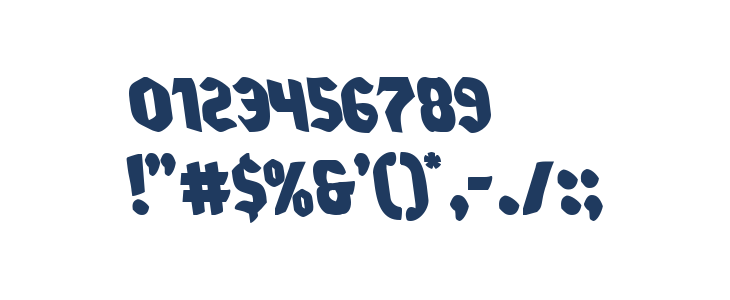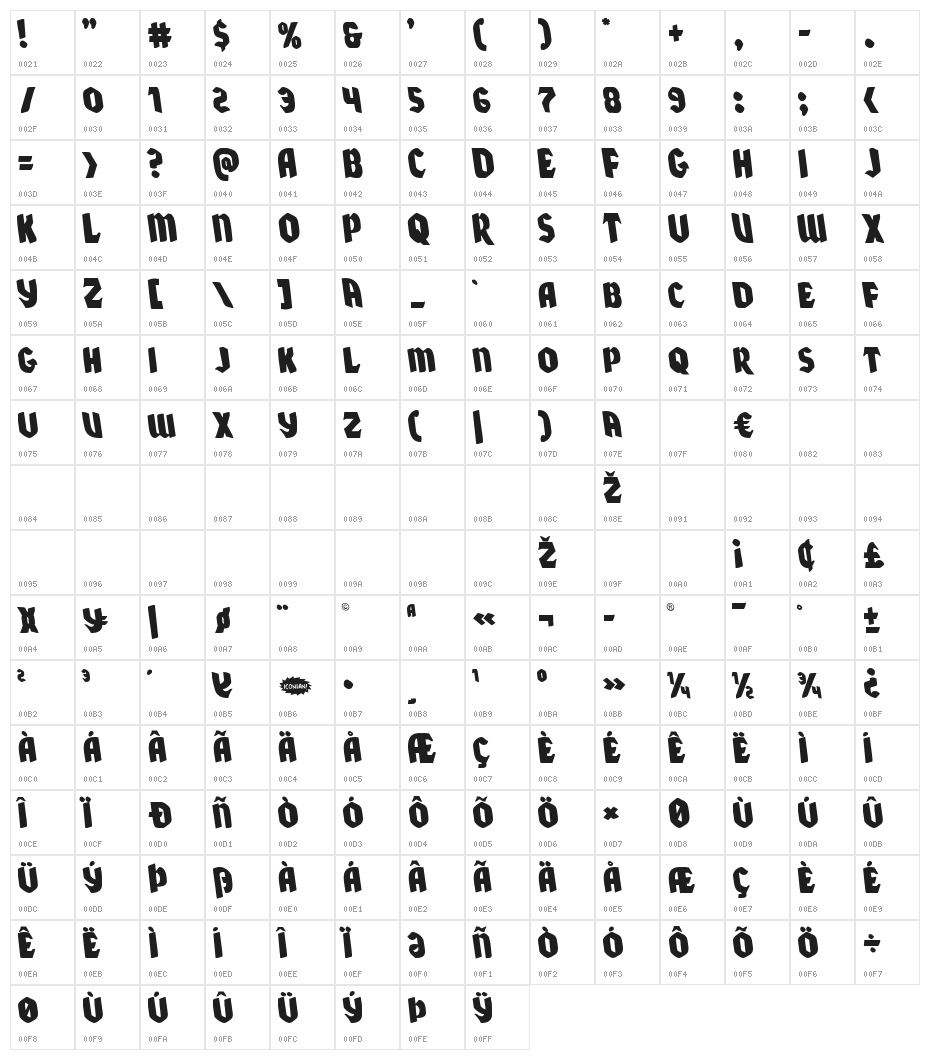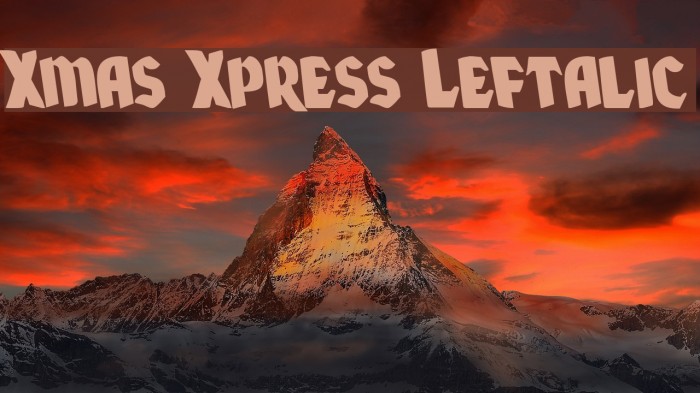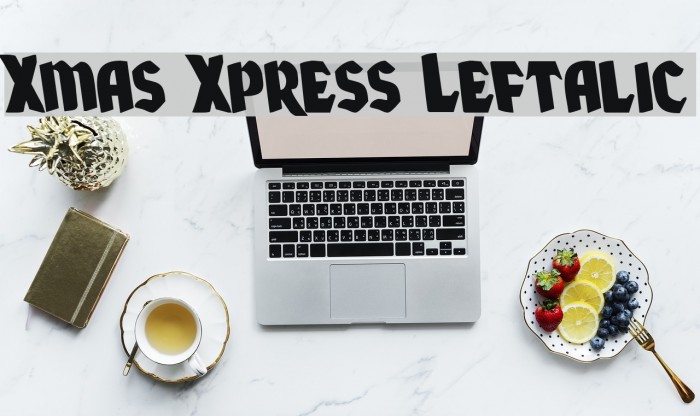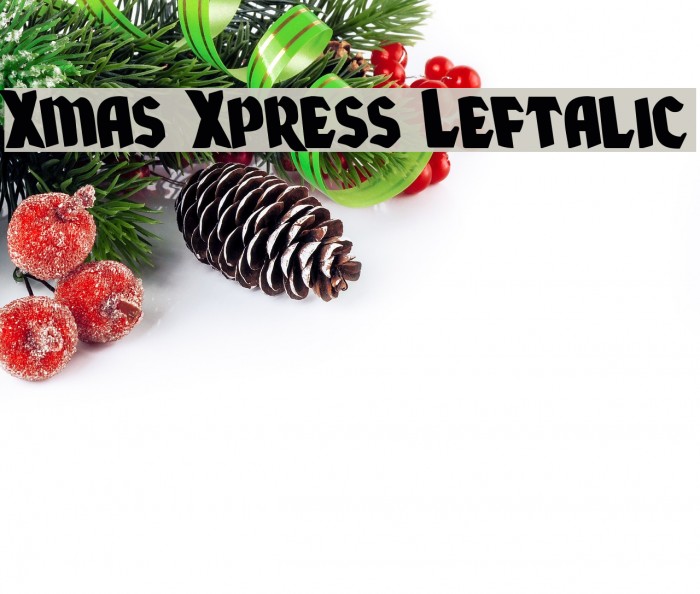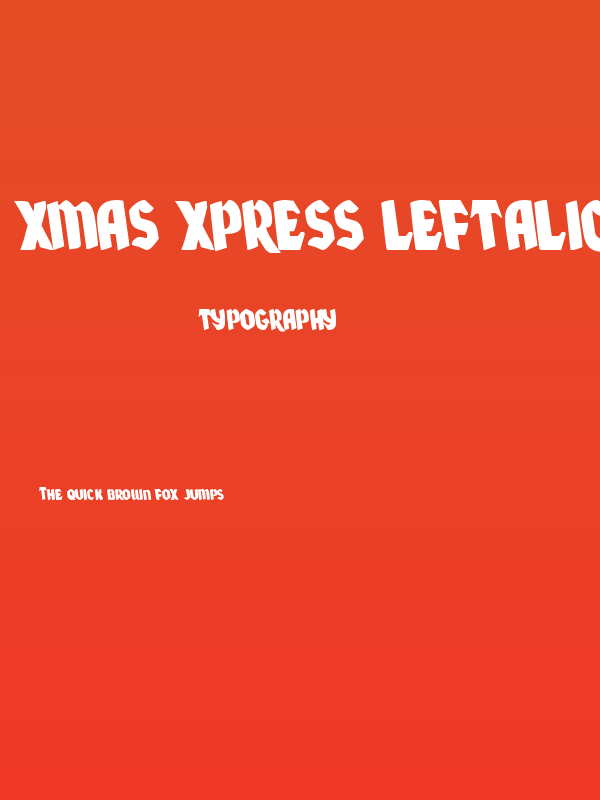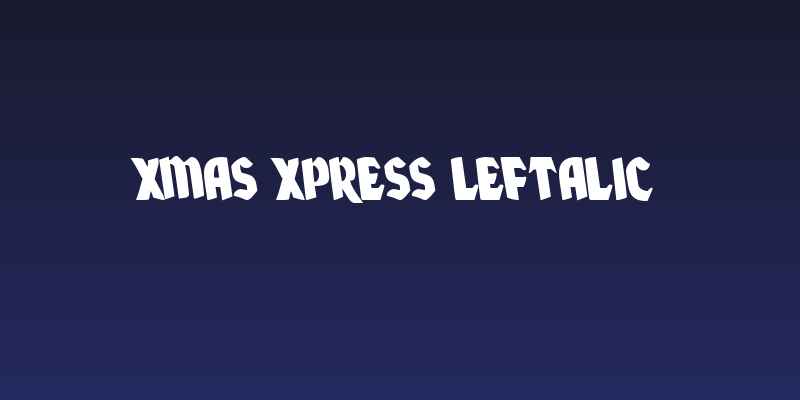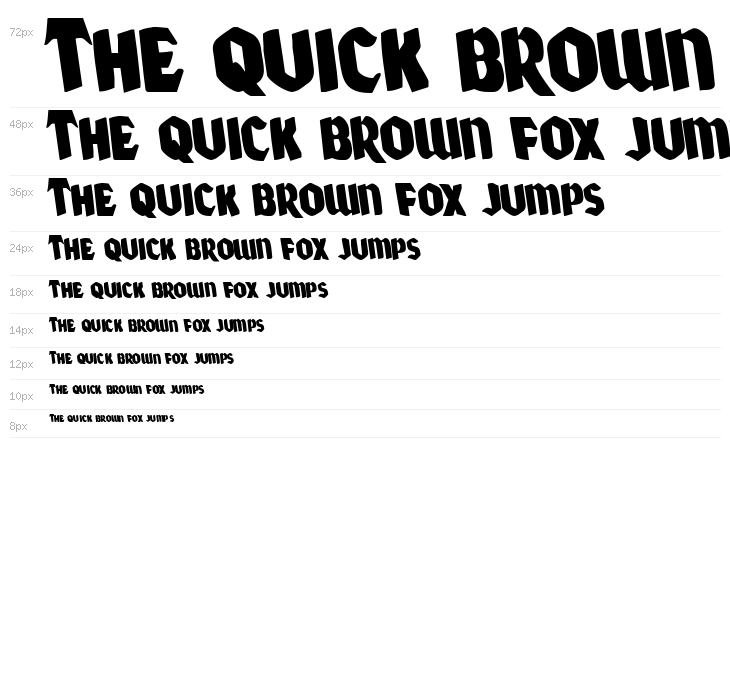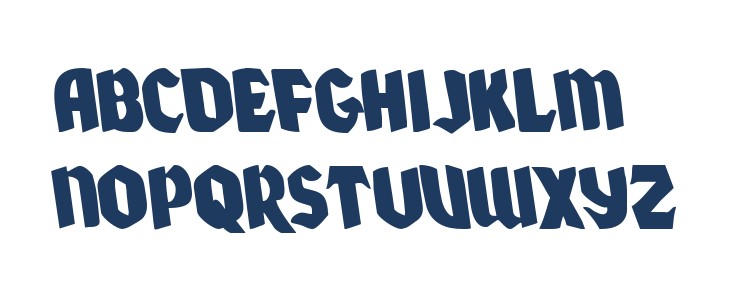
Xmas Xpress Leftalic Font
Xmas Xpress Leftalic Description
This font features a bold and playful design with a distinct slant to the left, giving it a dynamic and energetic appearance. The characters are thick and robust, with a slightly irregular shape that adds a whimsical touch. The uppercase and lowercase letters maintain a consistent style, while the numbers and special characters complement the overall aesthetic. The font's boldness and unique slant make it stand out, ideal for projects that require a fun and eye-catching typeface.
| Proposed Projects | Perfect for holiday-themed designs, playful branding, children's books, festive invitations, and eye-catching posters. |